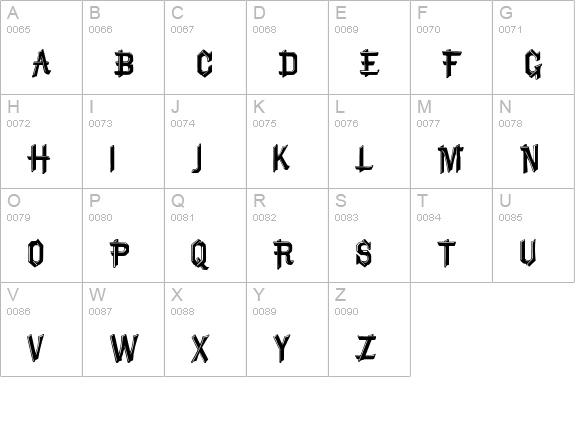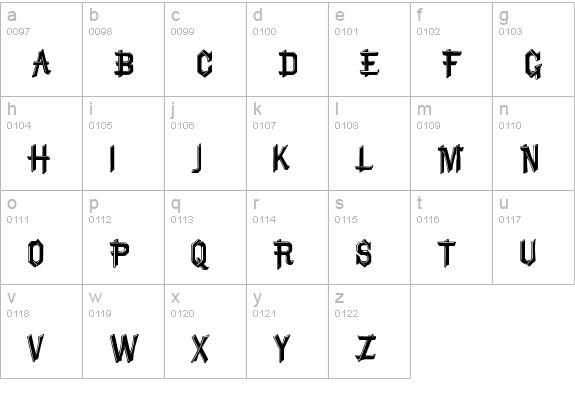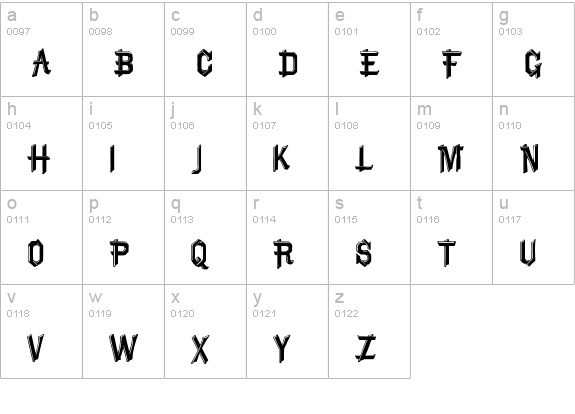
Bruce Mikita Font Details
Bruce Mikita font is a stylish and modern typeface that exudes sophistication and elegance. With its sleek lines and unique design, this font is perfect for creating eye-catching headings, logos, and branding materials. The versatility of Bruce Mikita font makes it suitable for a wide range of design projects, from digital to print. The best part is that Bruce Mikita font is available for free download at FontsMarket.com. This means you can easily access this amazing font and use it in your projects without any cost. Don't miss out on the opportunity to enhance your designs with the beauty and charm of Bruce Mikita font. Download it today and elevate your creative projects to the next level.